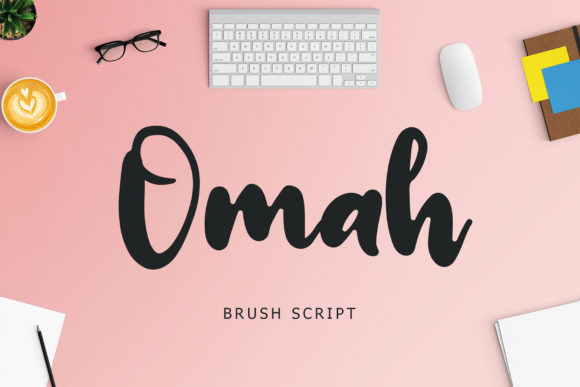
Omah Font
Are you searching for the perfect font to capture your unique style and convey your message with impact? Look no further than Omah, the captivating script font that combines elegance, readability, and versatility like no other. Omah's enchanting brushstrokes dance across the page, creating a captivating visual experience that draws the reader in and keeps them engaged. Its organic flow and down-to-earth charm make it a standout choice for any design project, whether you're crafting heartfelt letters, designing eye-catching social media posts, or creating stunning website headlines. Omah's versatility shines through its ability to seamlessly blend with any background, adding a touch of sophistication and creativity without overpowering your content. Its innate readability ensures that your message is conveyed with crystal clarity, leaving a lasting impression on your audience. Embrace the power of Omah and let your words take center stage, captivating readers with its unique charm.